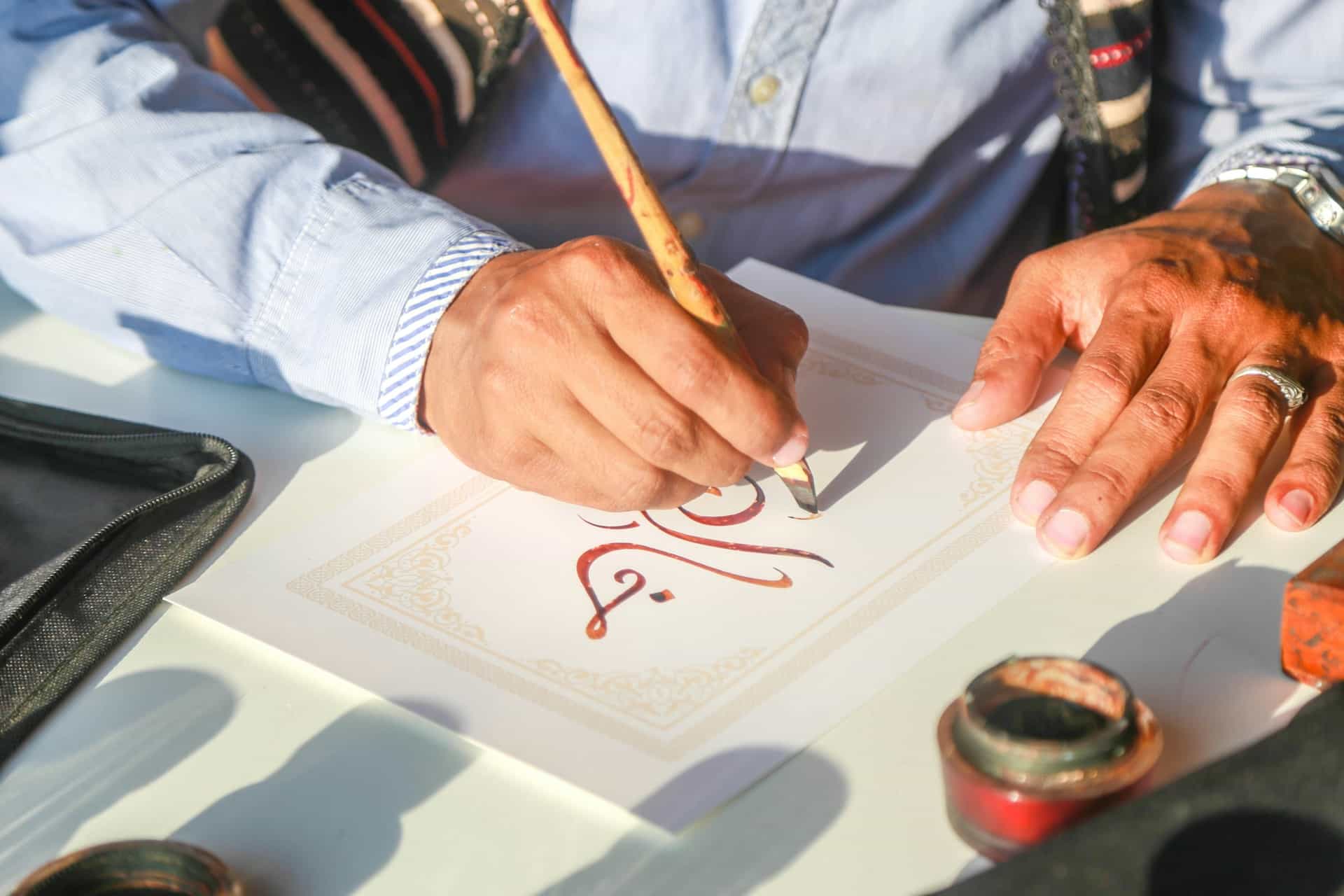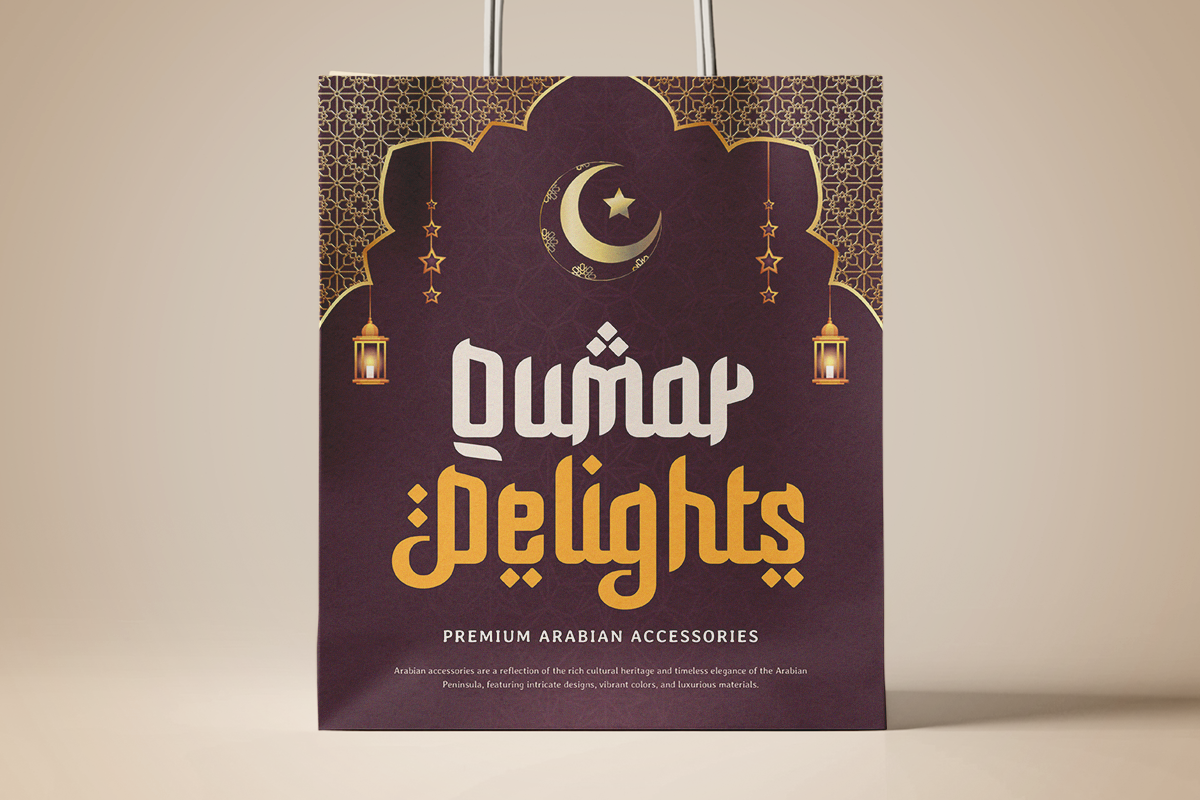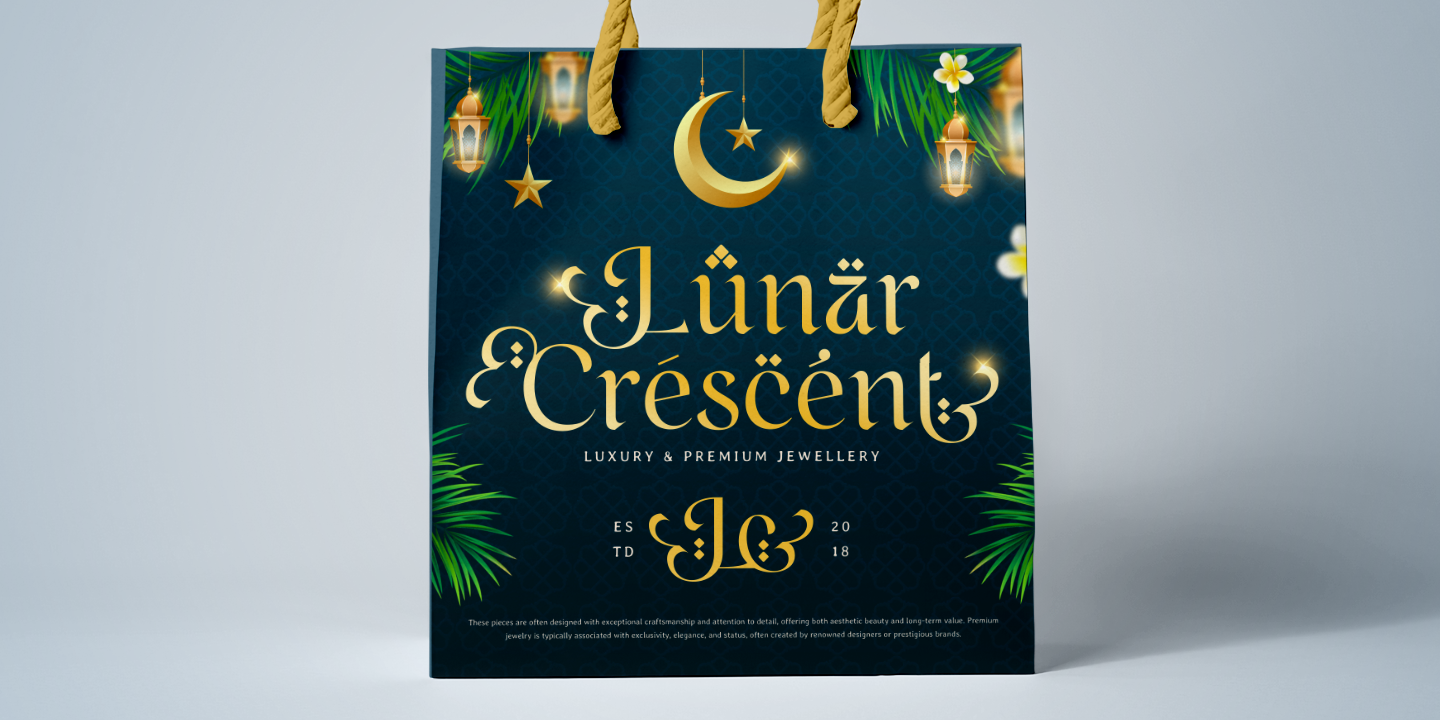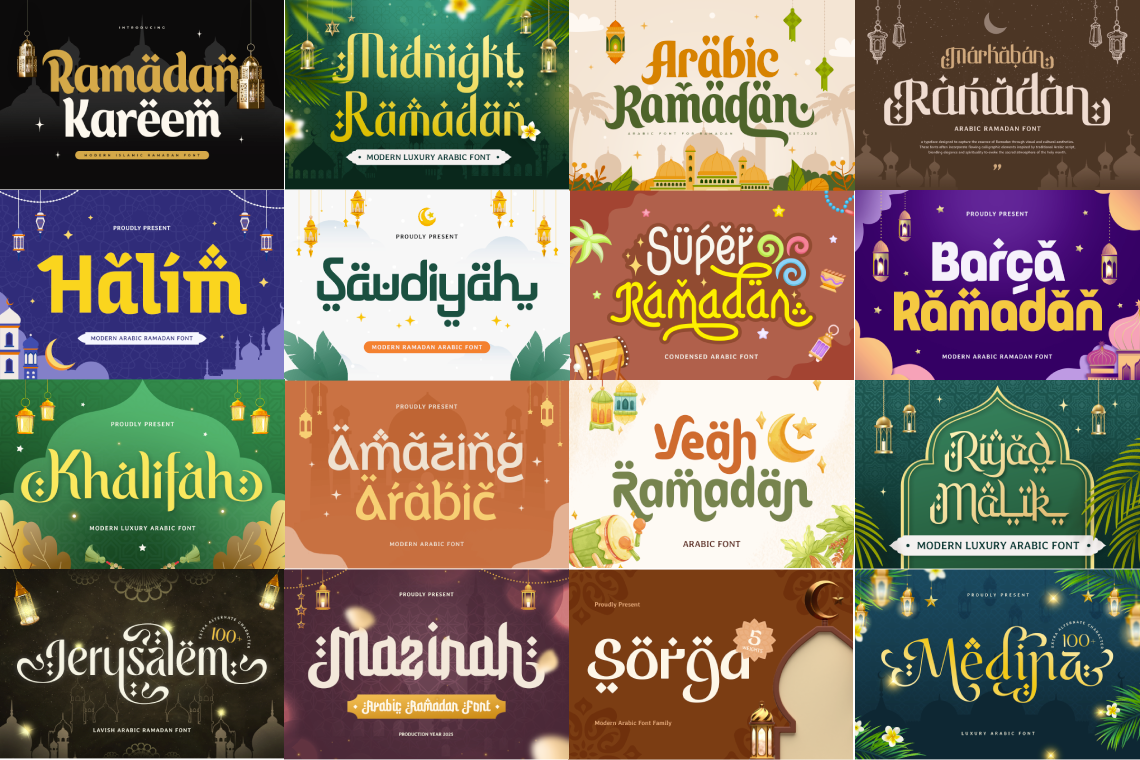
How to Pick Arabic Font for Your Design Project
Shopping Bag with Luxury Arabic Font Design
Arabic fonts are like a visual language all their own. They’re not just letters; they’re art. Whether you’re designing for a website, branding a product, or putting together an eye-catching poster, the right Arabic font can be the secret ingredient that ties your project together. But picking the wrong one? That’s a one-way ticket to making your design look like a bad photocopy of cultural significance. Here’s how to avoid that.
What Makes Arabic Fonts So Special?
Arabic fonts are built to flow, literally. The letters connect like a perfectly choreographed dance, giving the script its elegance and charm. But here’s the kicker—this same connected style makes them tricky to handle. Unlike English fonts, you can’t just swap letters around willy-nilly. You need a font that keeps the natural rhythm and flow intact while staying easy to read.
Add to that the fact that Arabic fonts often come with ligatures (those fancy combined characters) and other stylistic quirks, and it’s clear: choosing the right font isn’t just about aesthetics; it’s about functionality too.
A Little History Lesson Arabic Fonts
Arabic fonts aren’t just random designs; they’re rooted in history and culture. Back in the day, calligraphy was king. Styles like Thuluth were used for Quranic texts, while Kufi showed up in early Islamic architecture. These aren’t just fonts; they’re storytelling tools that carry centuries of meaning.
Fast forward to today, and we’ve got modern Arabic fonts that blend this rich heritage with a contemporary vibe. Think of them as the cool kids who honor their grandparents while rocking sneakers. They’re perfect for digital media, pairing tradition with readability and modern design flair.
Person writing calligraphy arabic font Sensatype Studio
The Arabic script encompasses five principal writing styles, each with its distinct characteristics and cultural significance:
1. Naskh (النسخ) - The most common style used in modern Arabic printing - Known for its clarity and readability
2. Nastaliq (نستعلیق) - Flowing, elegant style - Particularly popular in Persian and Urdu calligraphy
3. Taliq (تعلیق) - Predecessor to Nastaliq - Features hanging letters and fluid strokes
4. Kufic (الخط الكوفي) - One of the oldest calligraphic forms - Characterized by angular, geometric designs - Often used in architectural decoration
5. Rasm (الرسم) - Early Arabic script style - Foundation for later calligraphic developments
Each style carries its own historical heritage and is chosen based on specific contexts, from religious texts to decorative art.
How to Choose an Arabic Font
Medina font by sensatype featured in how to pick arabic font title
Picking the right font isn’t rocket science, but it does take some thought. Here’s how to nail it:
1. Know Your Purpose
Why are you choosing an Arabic font in the first place? Your project’s purpose will guide your choice:
• Formal Documents: Go with Naskh. It’s clean, clear, and doesn’t get in the way of your message. Perfect for anything official or academic.
• Casual or Modern Projects: Kufi’s geometric vibe screams modernity, while Thuluth adds a splash of artistic flair.
• Artistic or Ornate Designs: If you’re designing for impact, Diwani’s intricate curves are your best friend. It’s a showstopper but can be hard to read in long texts, so use it sparingly.
2. Think About Your Audience
Your audience matters. A lot. What works for one group might totally flop with another.
• Traditional Audiences: Stick with classics like Naskh. It’s the comfort food of Arabic fonts—familiar and trustworthy.
• Younger Crowds: Want to catch the eye of the Instagram generation? Go bold with a modern Kufi font that feels fresh and edgy.
Pro tip: Be mindful of cultural sensitivities. Some fonts have specific religious or cultural connotations. Know what your font says beyond the words it’s spelling out.
3. Prioritize Readability
Yes, fonts are about style, but if no one can read your text, what’s the point? Make sure your chosen font works across sizes and devices. A font that looks stunning on a billboard might be a headache to read on a smartphone.
• Font Size: Test how it looks in both big and small sizes. Some fonts get blurry or lose detail when scaled down.
• Device Compatibility: Digital media is everywhere, so test your font on phones, tablets, and desktop screens.
So go ahead, find that perfect font. Your project deserves it. And who knows? You might just fall in love with the art of Arabic typography along the way.